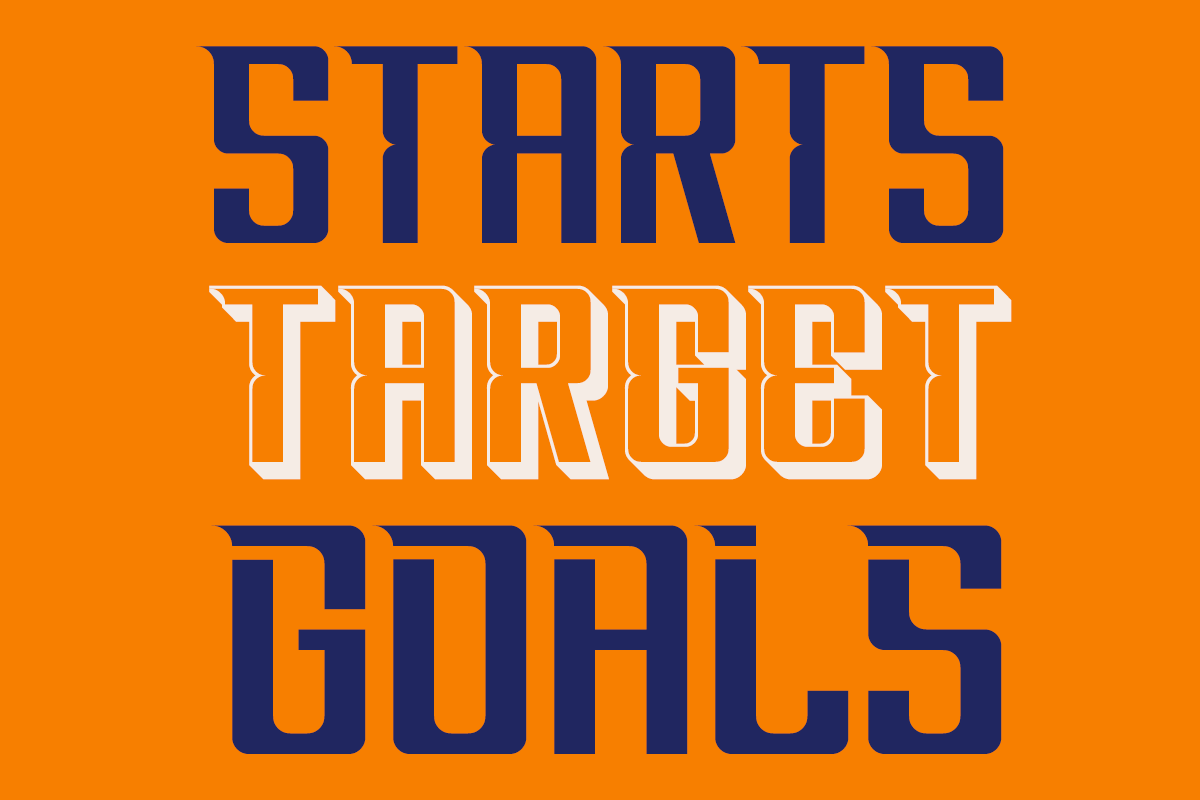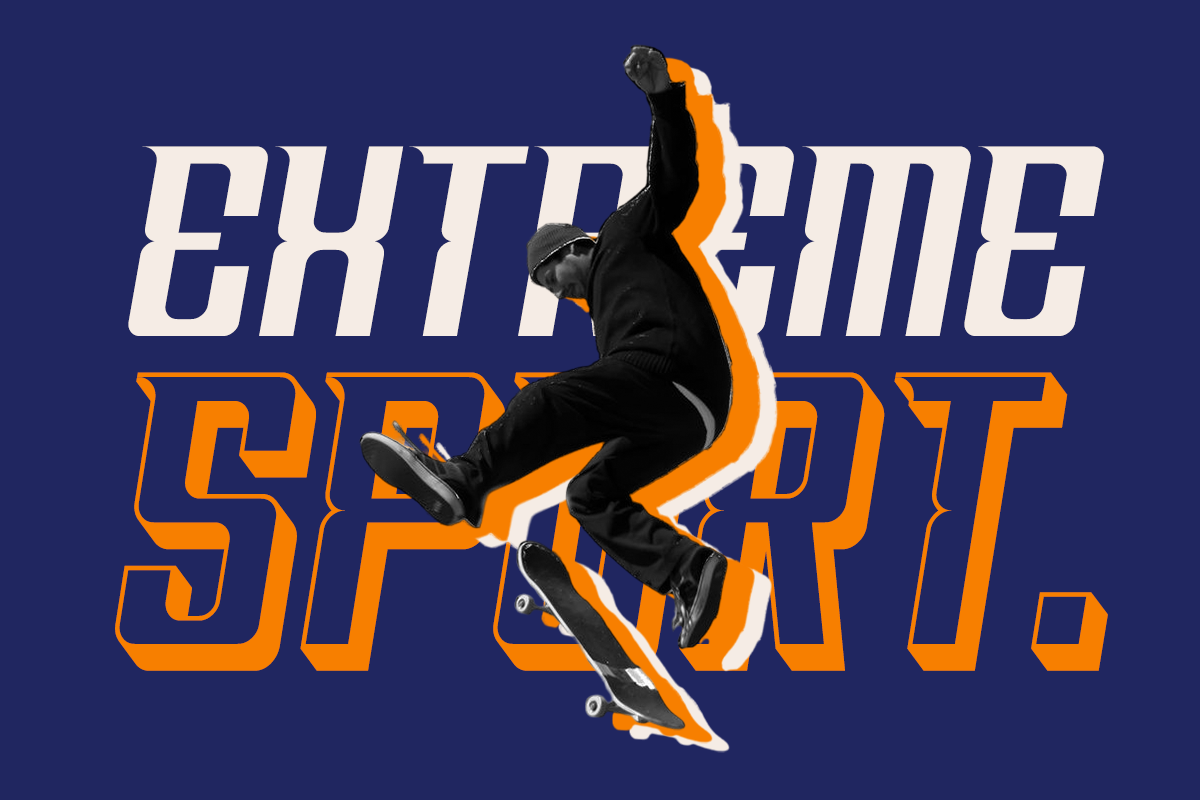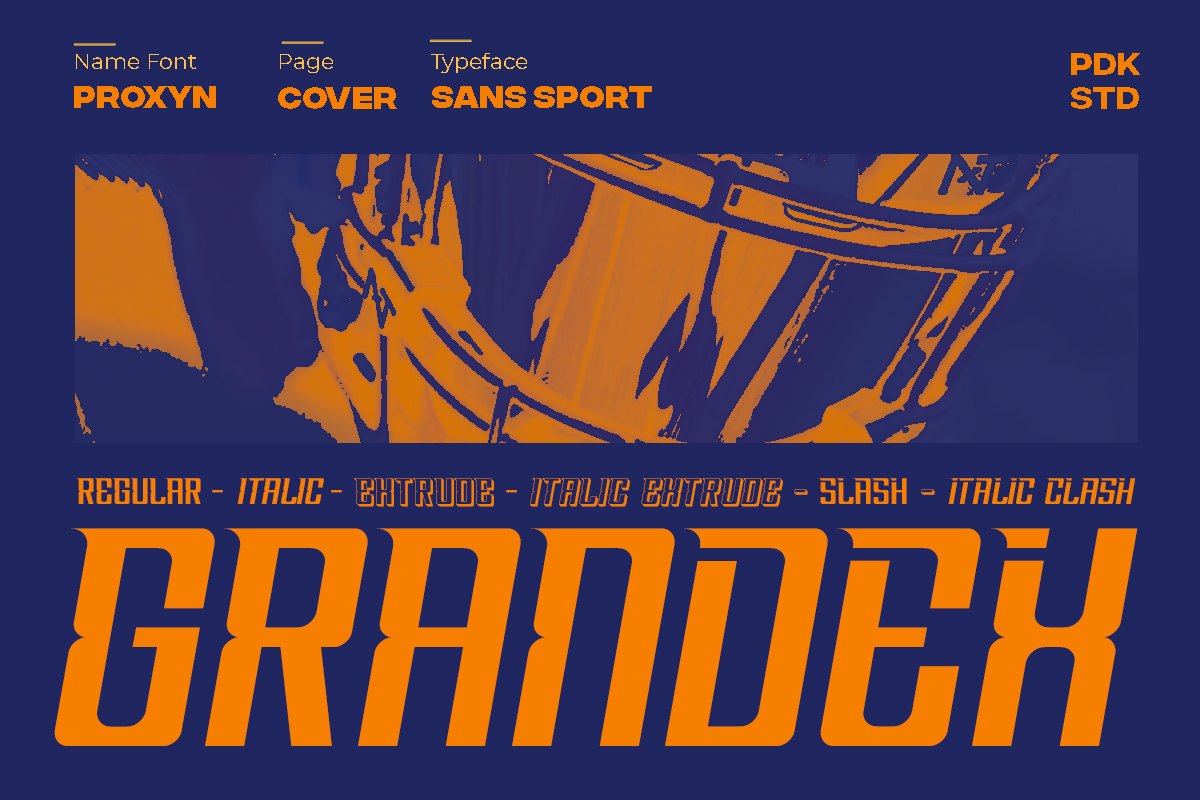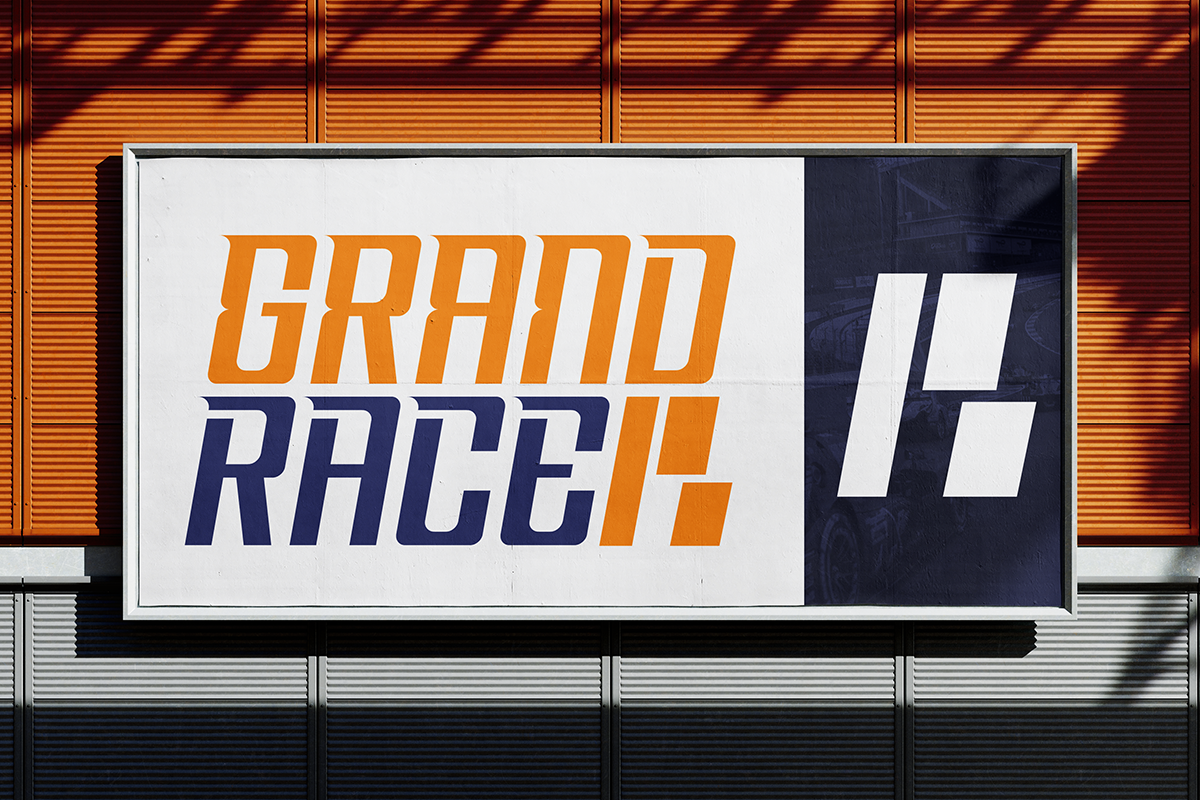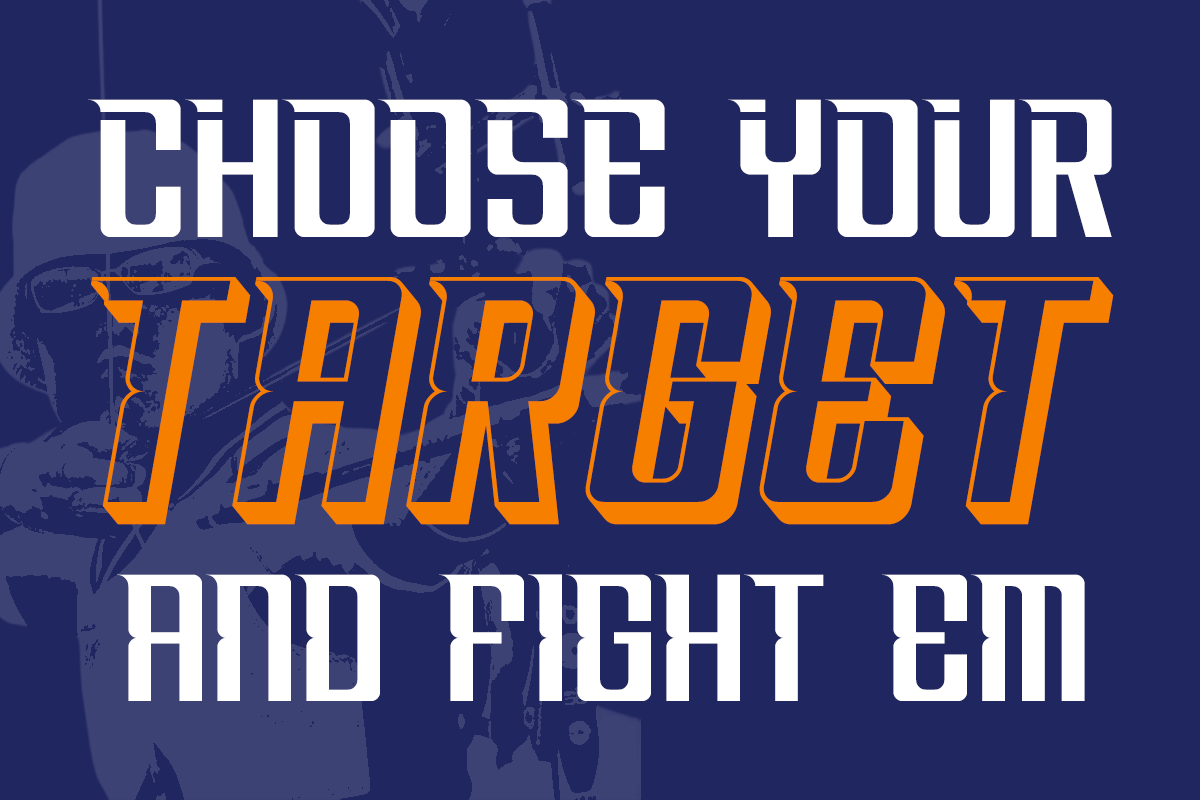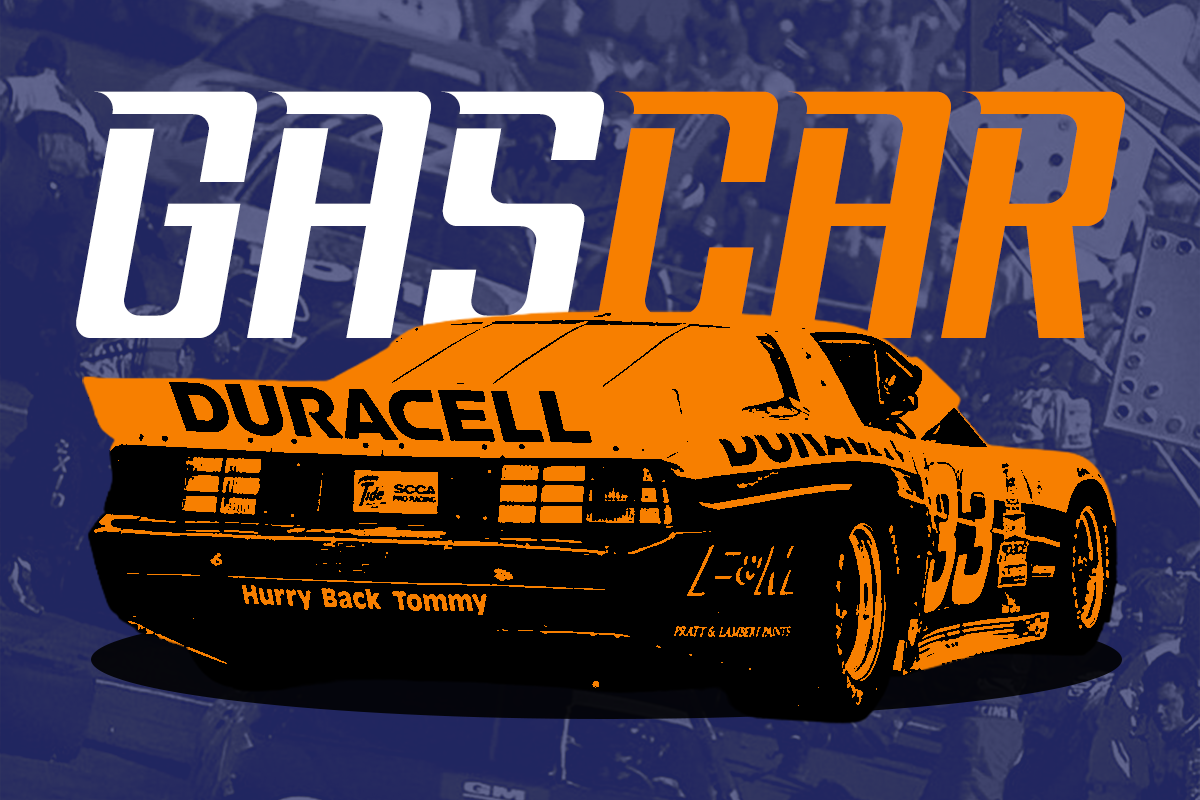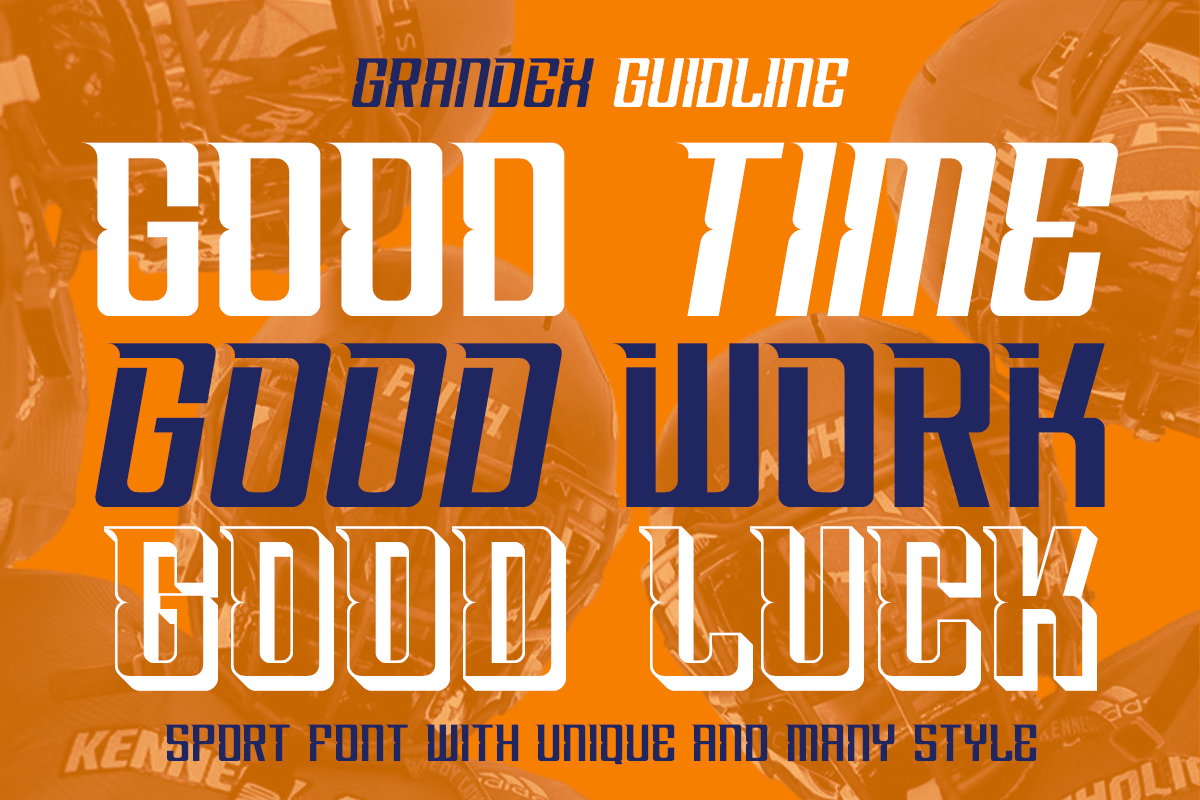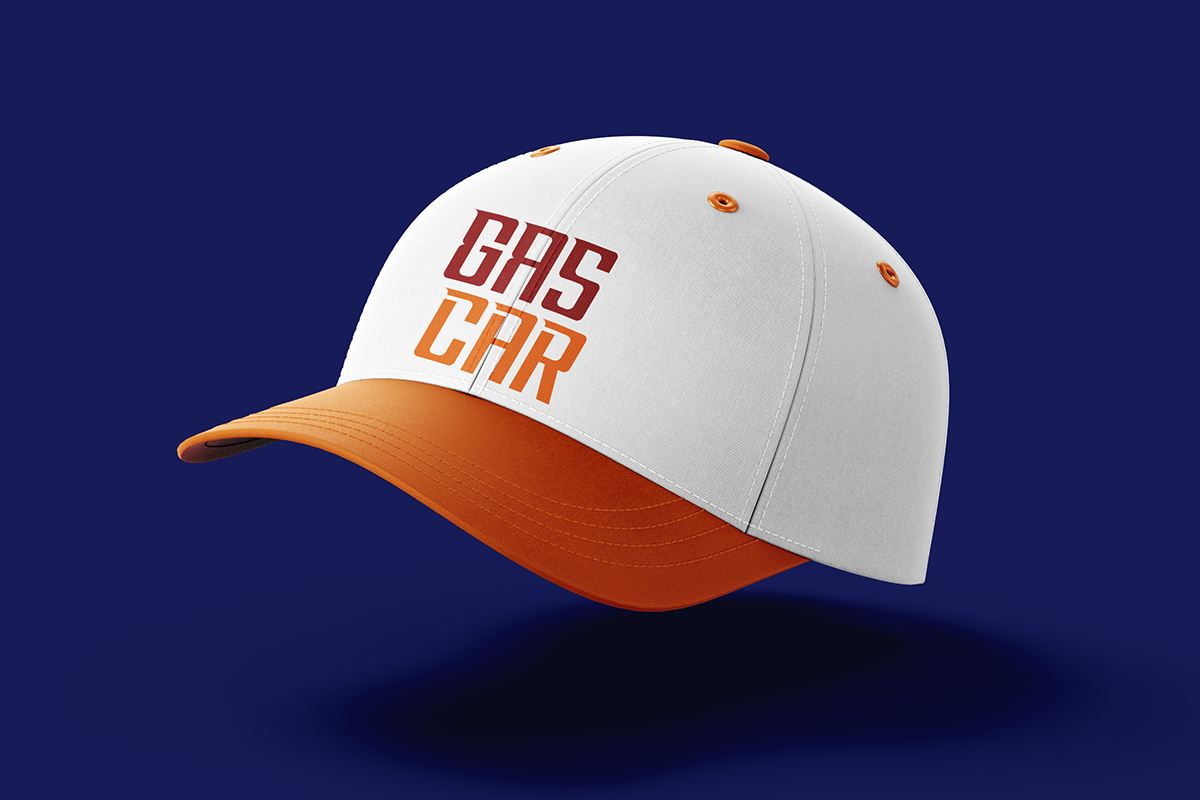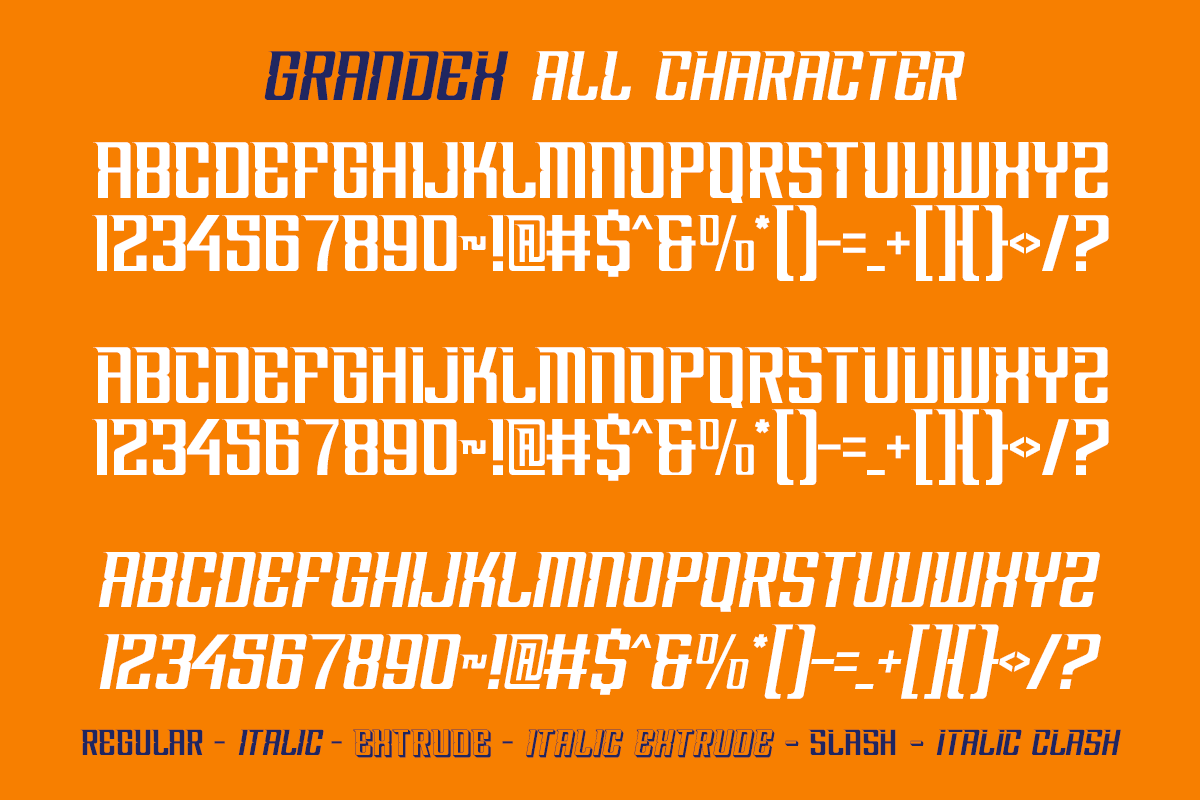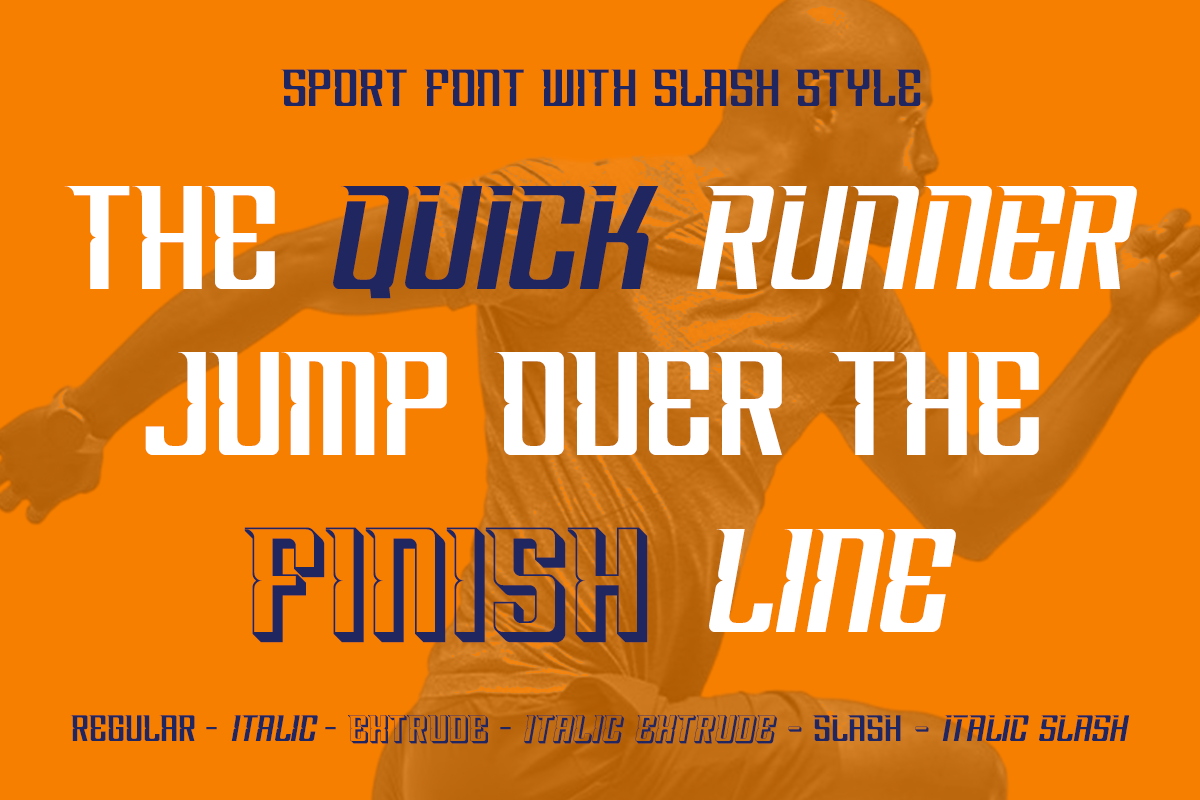
Grandex - Sport Font
Introducing Grandex, the ultimate modern sport font designed to capture the thrill and intensity of racing. Grandex features bold, all-caps letterforms that evoke speed, power, and the roaring energy of high-performance machines. With sharp corners and solid shapes, this font brings the racing spirit to life, making it the perfect choice for any design that demands attention.
Grandex offers six dynamic styles: Regular, Italic, Extrude, Italic Extrude, Slash, and Italic Slash, allowing you to tailor your designs to match the exact tone and energy of your project. Whether you’re designing logos, headlines, posters, movie titles, or magazines, Grandex ensures your projects stand out with a commanding presence and a powerful racing vibe.
Get ready to rev up your designs and cross the finish line with style!
- Six unique styles: Regular, Italic, Extrude, Italic Extrude, Slash, and Italic Slash
- Strong, confident letterforms
Enhance your sports-themed designs with Grandex, the ultimate font for bold and impactful typography.